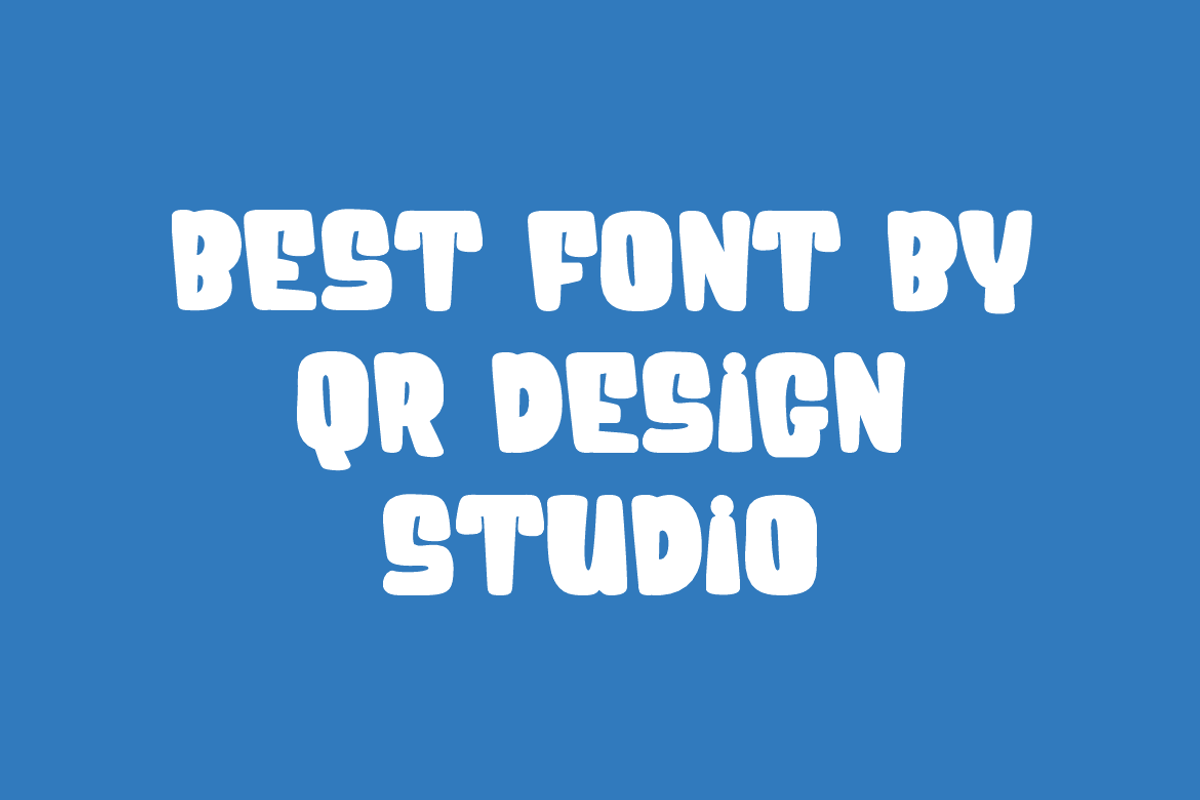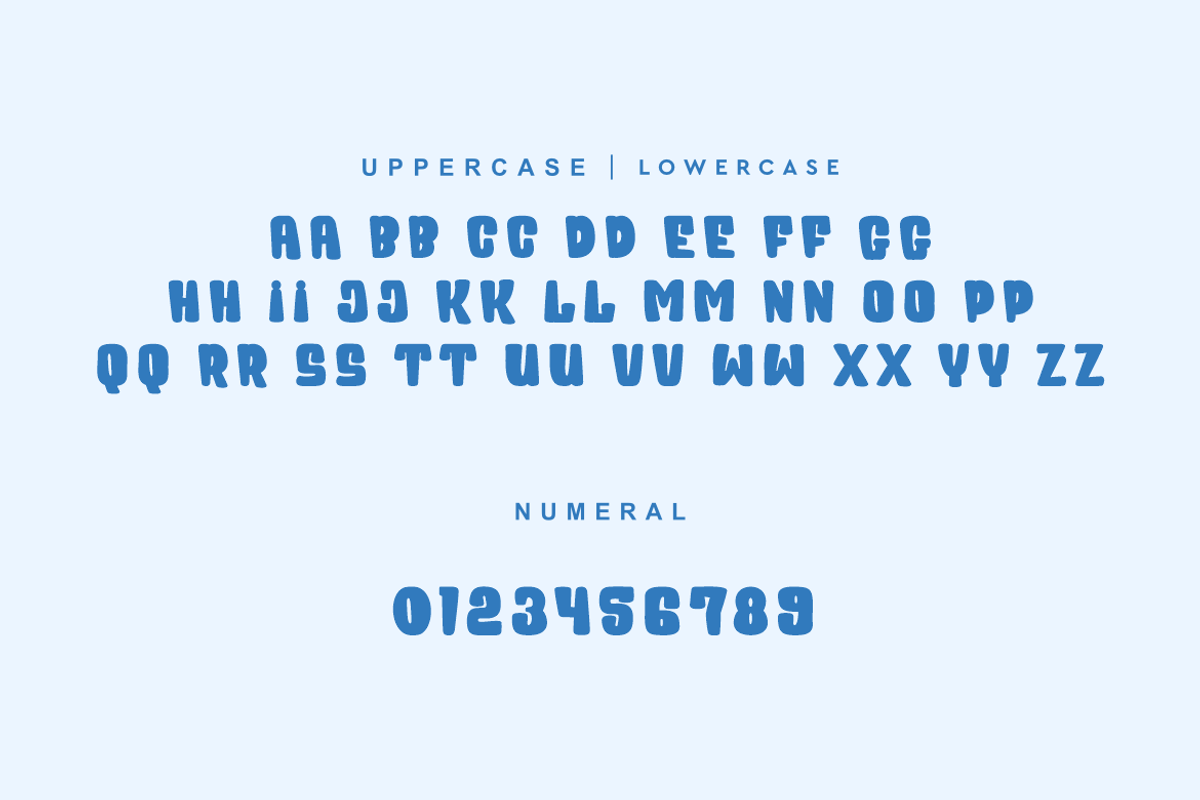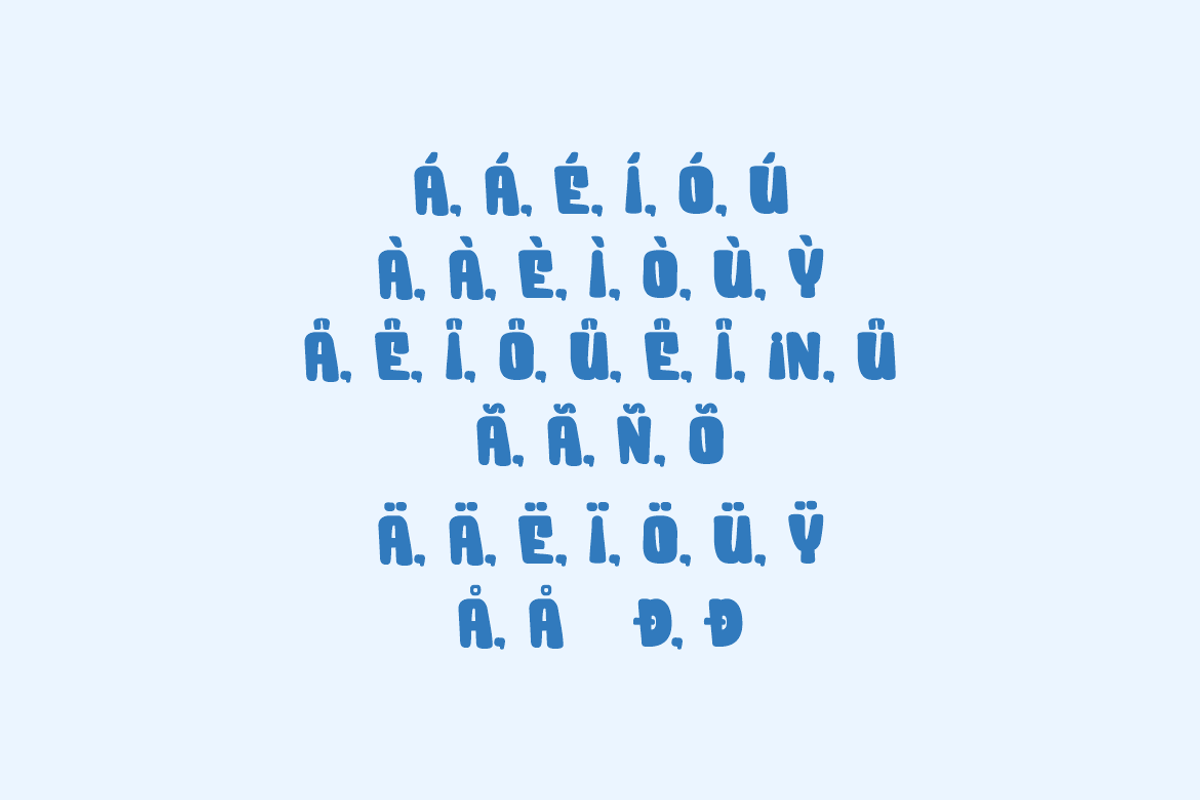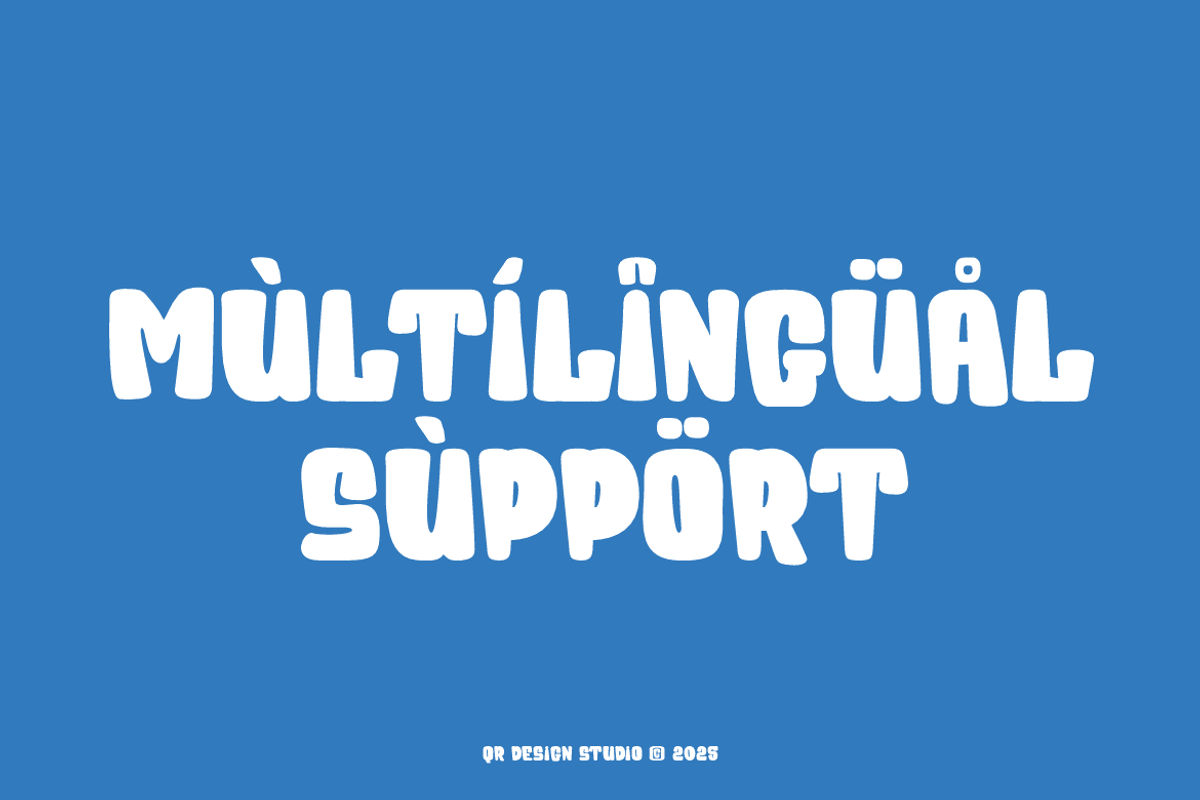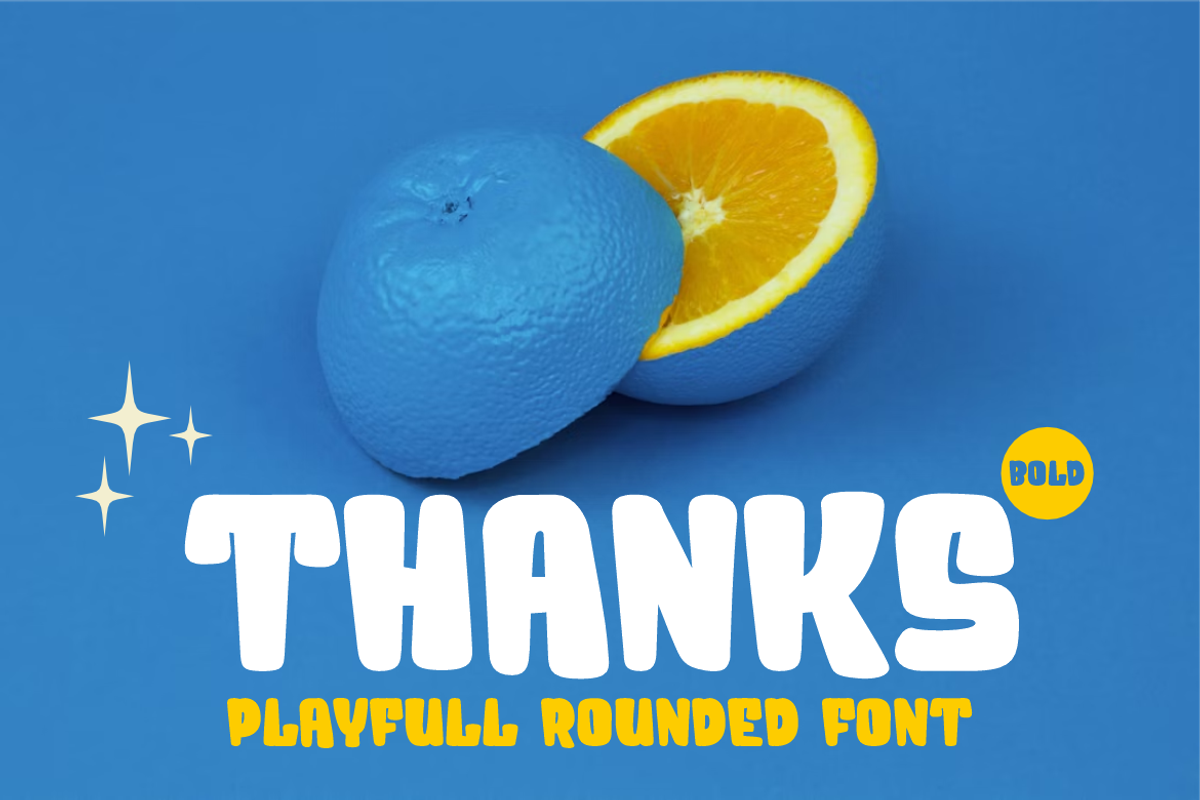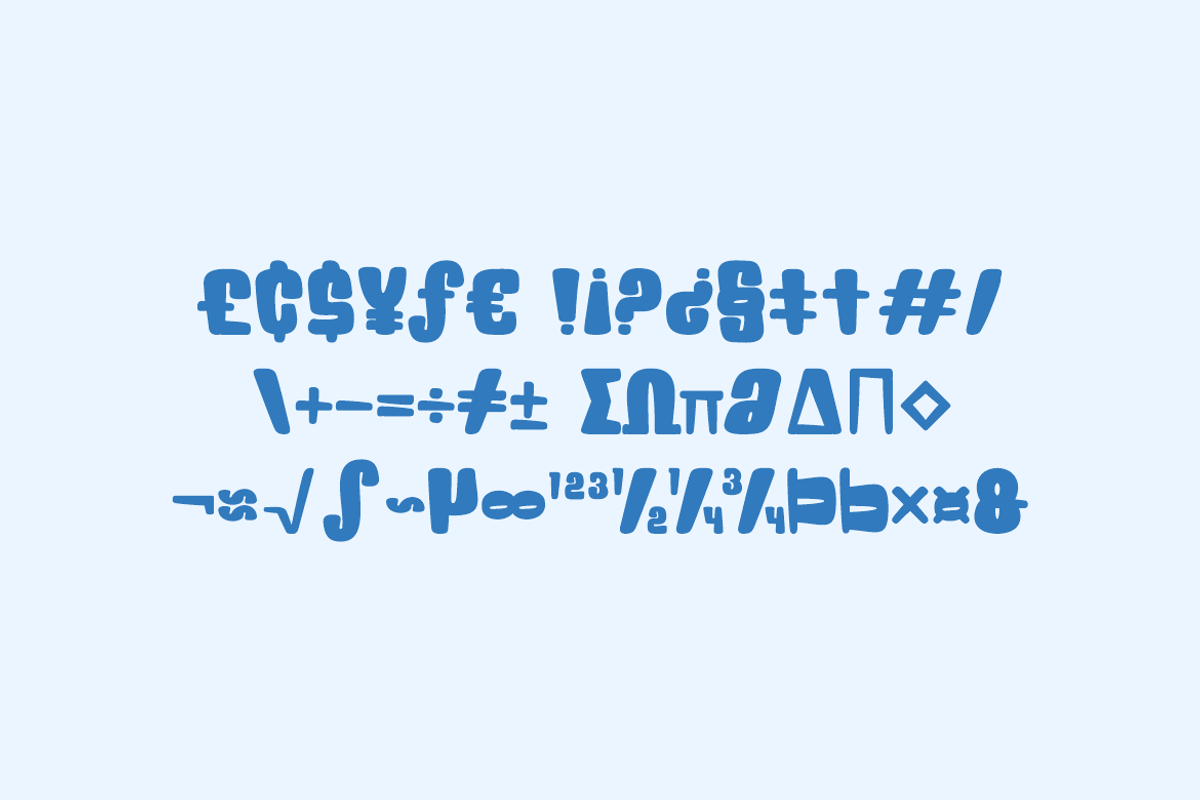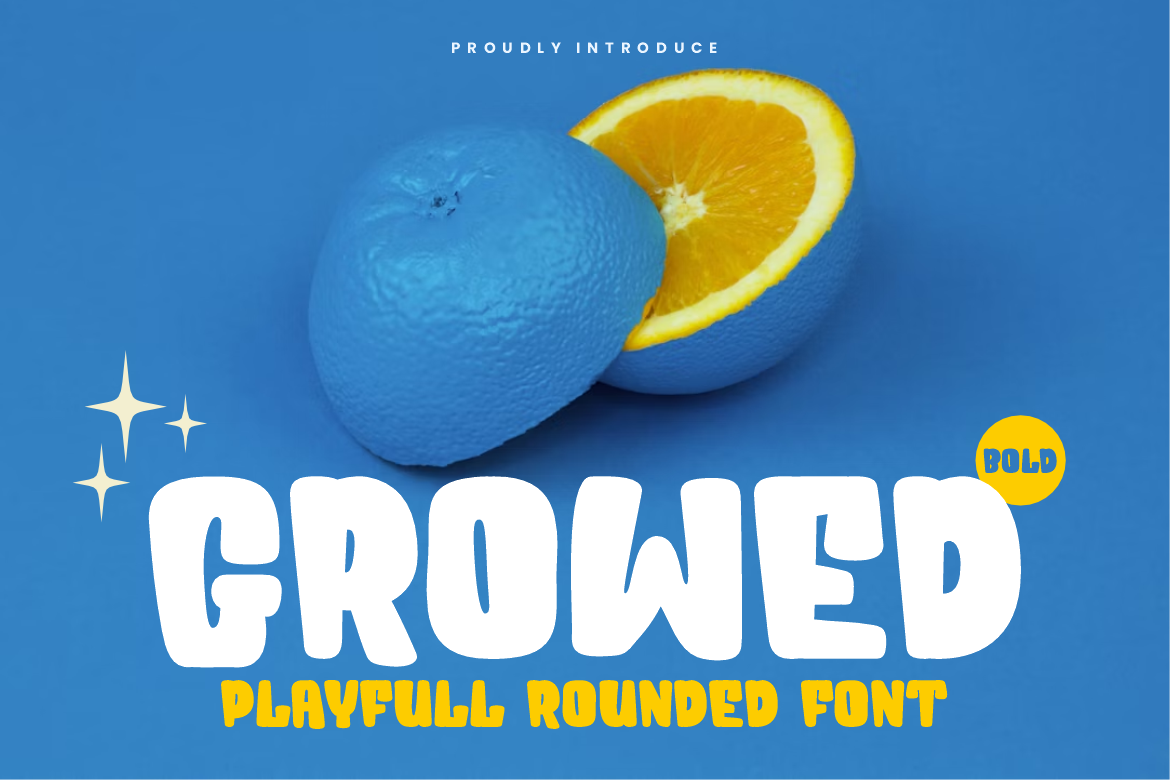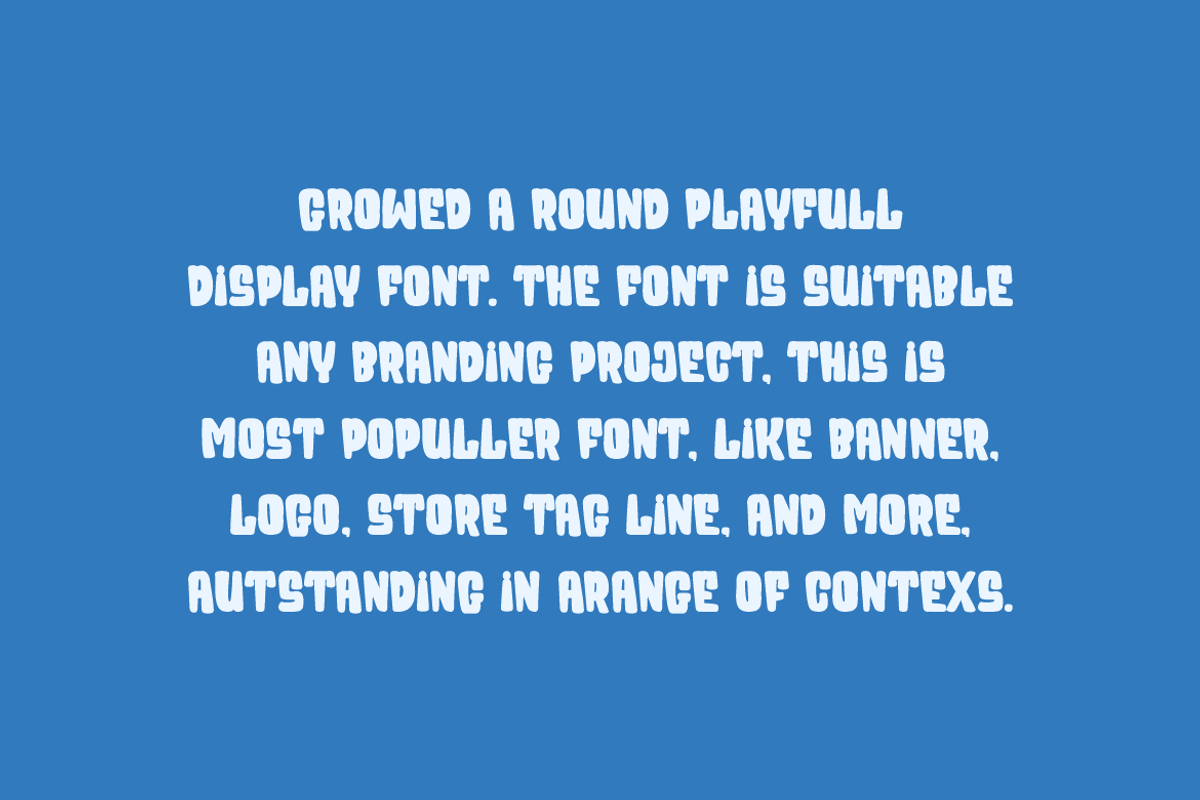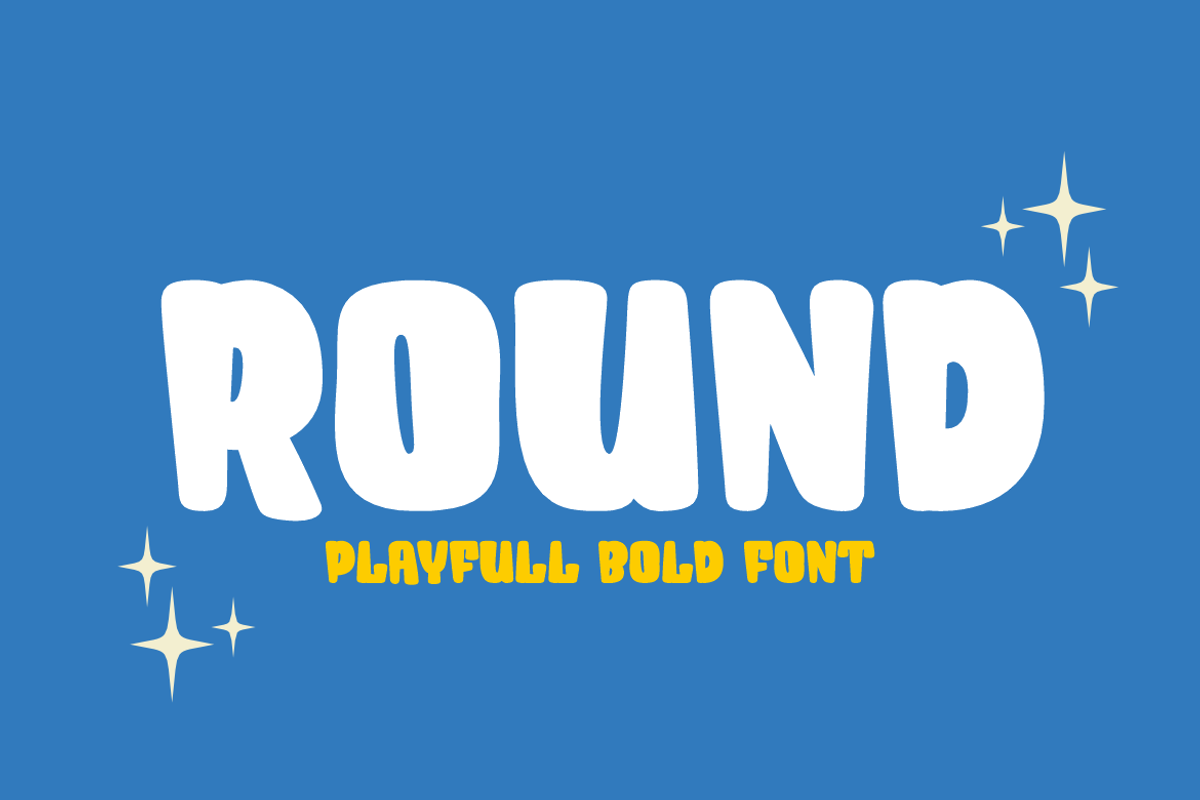
Growed - Playful Rounded Font
Growed Font is a bold and authentic display font. The font is suitable for any branding project like poster, logo, kids, and many more. Outstanding in a wide range of contexts.